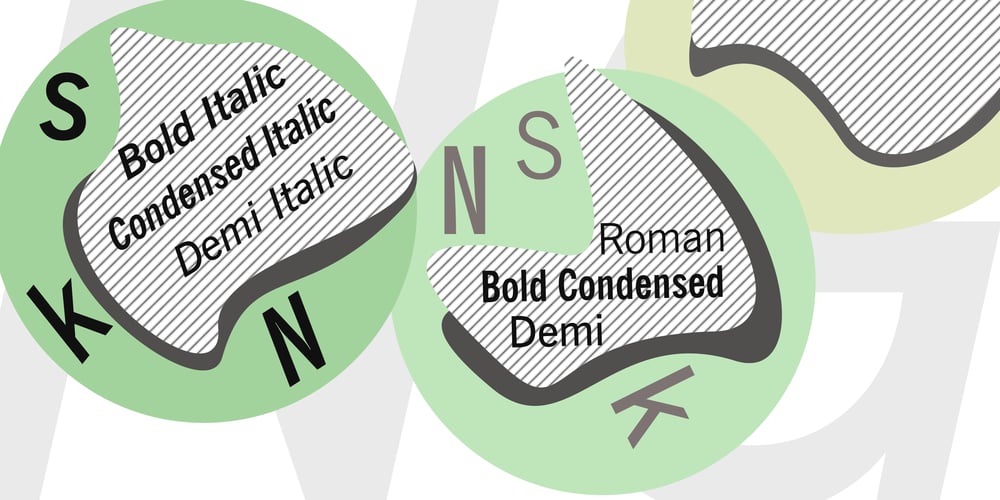
News Gothic BT Font Family was designed by Morris Fuller Benton and published by Bitstream. News Gothic BT contains 14 styles and family package options. The standard American sanserif of the first two thirds of the twentieth century, prepared for ATF by Morris Fuller Benton in 1908 under the name News Gothic, with a matching lightface known as Lightline Gothic. Linotype’s Trade Gothic follows News Gothic except for its widely-spaced straight-sided boldface based on ATF Alternate Gothic No.3. Linotype matches News Gothic Bold, a boldface version that originated at Intertype, with Trade Gothic Bold No.2. Ludlow Record Gothic follows News Gothic more loosely.News Gothic BT™ font field guide including best practices, font pairings and alternatives.